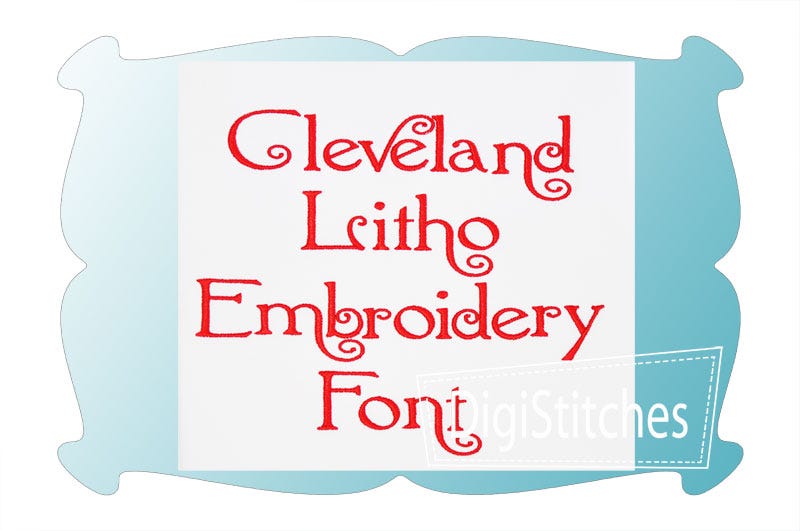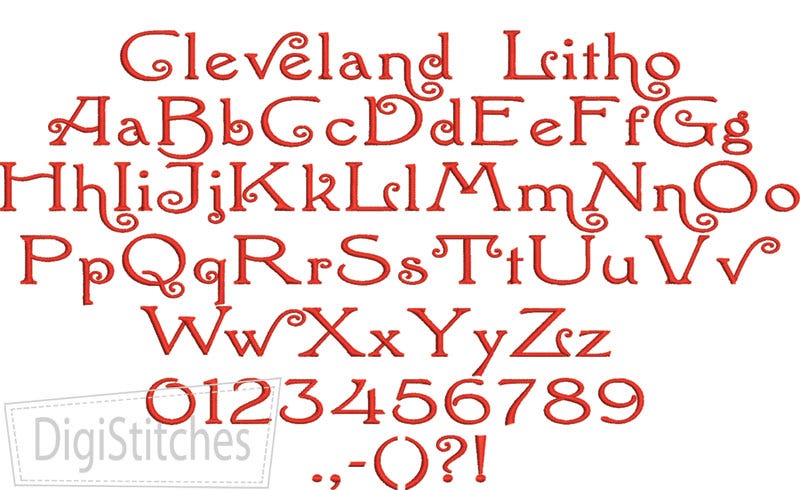
Cleveland Litho Satin Stitch Embroidery Font
Cleveland Litho Embroidery Font
Cleveland Litho embroidery font features bold letters that really stand out on t-shirts and projects.
An elegant font with a bit of curly whimsy.
Upper case letters A thru Z, lower case letters a thru z, numbers 0-9, punctuation as shown.